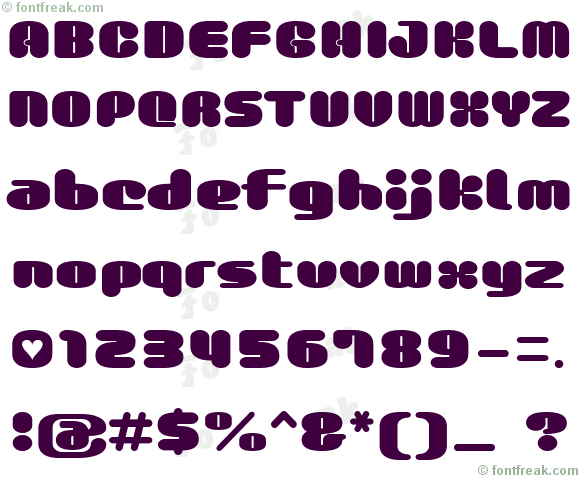
GauFontMilkChoco
About GauFontMilkChoco
GauFontMilkChoco is a unique display font designed by GRAPHIC ARTS UNIT, released as freeware in February 2001. This font falls into the category of decorative typefaces, characterized by its playful and whimsical design that makes it a standout choice for various projects. The visual characteristics of GauFontMilkChoco include a chunky stroke weight and minimal contrast, giving it a bold and friendly appearance. The rounded edges and slightly irregular forms add to its charming personality, making it approachable and engaging.
This font is particularly well-suited for a variety of creative applications. Its playful nature makes it an ideal choice for children's book covers, where a sense of fun and imagination is essential. Additionally, it can be effectively used for promotional materials for cafes and restaurants, adding a warm and inviting touch to menus and signage. Wedding invitations can also benefit from its unique flair, capturing the joyous spirit of the occasion. Furthermore, GauFontMilkChoco works wonderfully for branding projects that require a youthful and modern aesthetic, appealing to small business owners looking to create memorable identities.
Targeting graphic designers, content creators, and small business owners alike, GauFontMilkChoco provides a versatile option for anyone in need of a distinctive typeface. The font's friendly and playful design invites creativity, making it a perfect choice for projects where a light-hearted tone is desired.
What sets GauFontMilkChoco apart is its ability to blend fun with functionality, ensuring that any message presented in this font is both eye-catching and effective. For those interested in incorporating this delightful typeface into their work, a GauFontMilkChoco font free download is readily available, allowing for easy access to its unique charm.